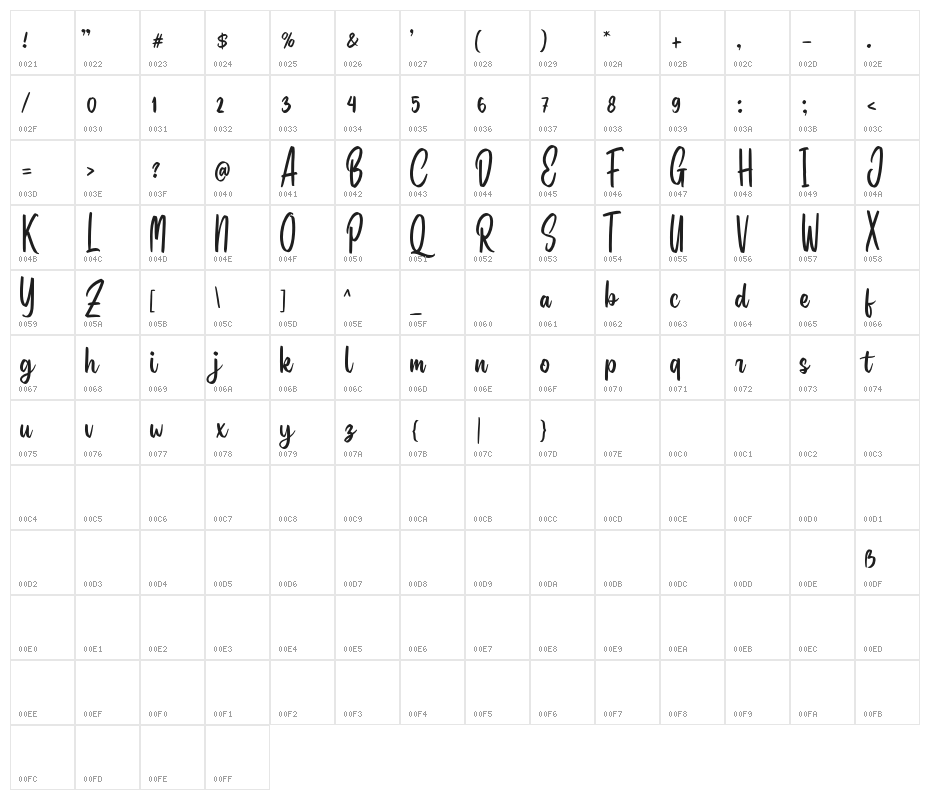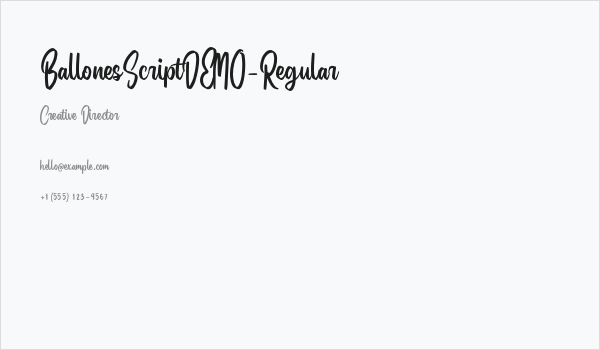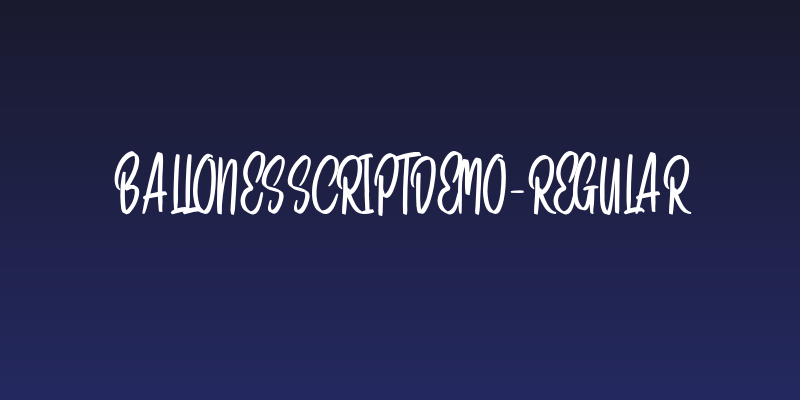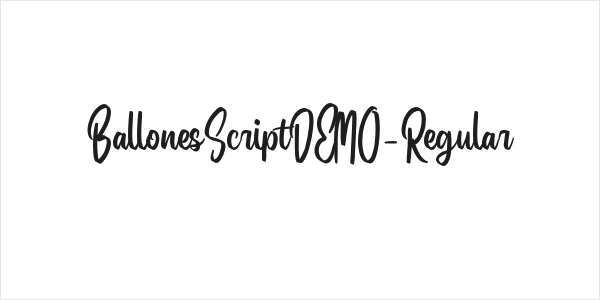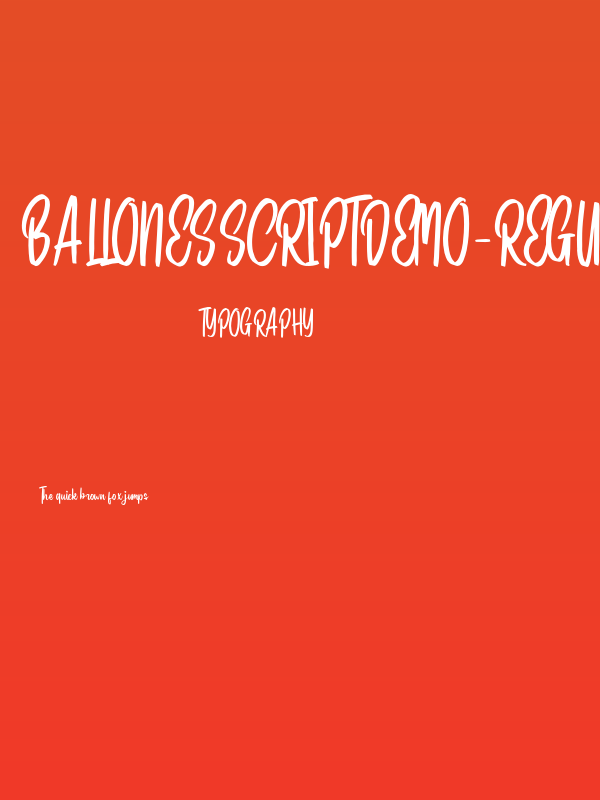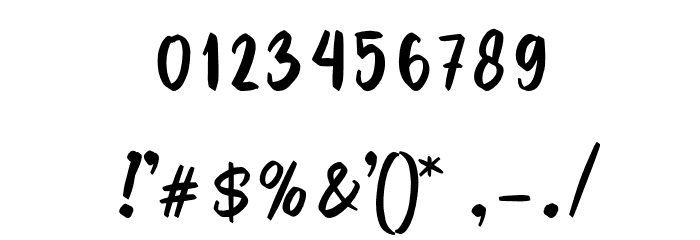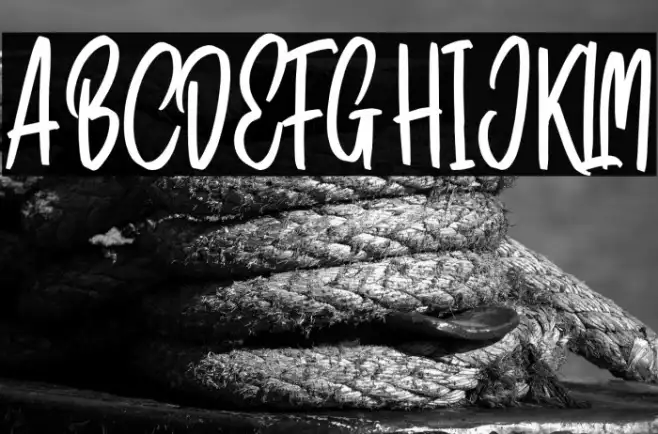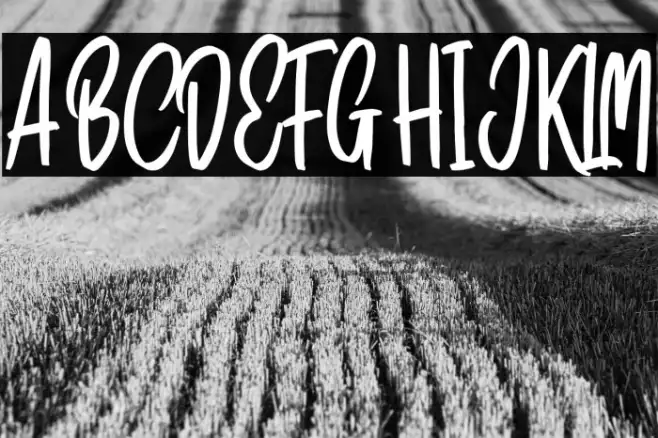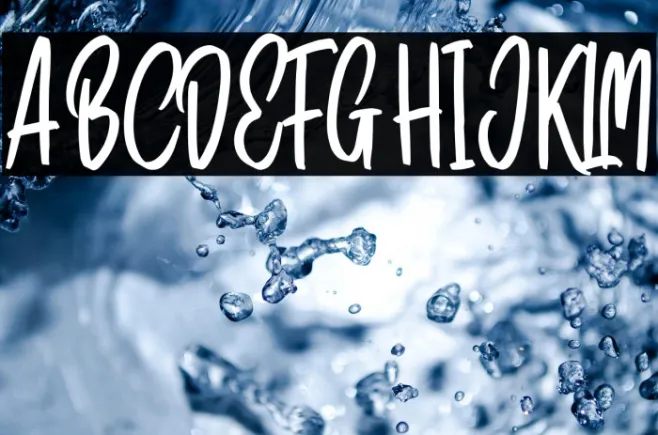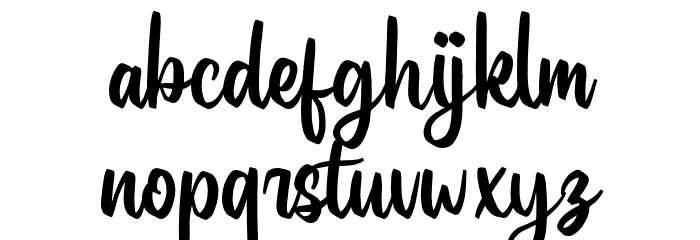
BallonesScriptDEMO-Regular Font
BallonesScriptDEMO-Regular Description
This font features a playful and energetic script style with a handwritten feel. The uppercase letters are tall and narrow, with a slight slant that adds a dynamic touch. Lowercase letters are more rounded and flow smoothly, creating a harmonious balance. The numbers are consistent with the overall style, maintaining the playful and informal vibe. Special characters are creatively designed, fitting seamlessly with the rest of the font. The strokes are bold, giving the font a strong presence while maintaining legibility. This font is perfect for projects that require a personal and friendly touch.
| Font Family | Ballones Script DEMO |
| Overall Style | Playful, Handwritten |
| Proposed Projects | Ideal for greeting cards, invitations, playful branding, and social media graphics. |